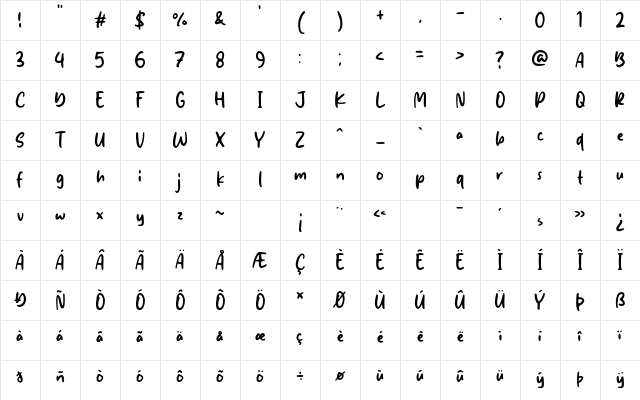
Simple Thursday Regular Free Font
Simple Thursday Regular
Designer: MJType (Muhamad Junaid) www.mjtype.com
Design Context for Simple Thursday
Simple Thursday is a composed and adaptable typeface that performs quietly and consistently across a wide range of design contexts.